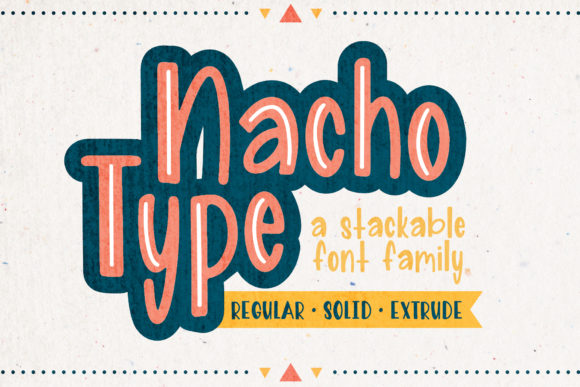
Introducing Nacho Type, the best font for vintage design! Created by The Pretty Letters, this hand-lettered feminine layered sans serif font family is perfect for all your design work. Whether you're creating holiday decorations, cinco de mayo t-shirts, Easter baskets and mugs, party banners, kids back to school activity sheets, or print-on-demand products, Nacho Type is sure to make your designs stand out.
With its unique style and elegant look, Nacho Type is perfect for any DIY project or cutting machine design, such as welcome home and birthday banners. This font family is a must-have for anyone looking to add a touch of sophistication to their designs.
Nacho Type's versatility is one of its greatest strengths. It works well with a variety of design styles, from vintage to modern. Its bold and clear lines make it easy to read, even at smaller sizes, making it perfect for both print and digital designs.
But Nacho Type isn't just about looks. It's also a highly functional font family that is perfect for any project. Its layered design allows you to create stunning effects with ease, making it perfect for creating eye-catching headlines, logos, and more.
In summary, if you're looking for a font family that is both stylish and versatile, look no further than Nacho Type. With its unique hand-lettered design, it's the perfect choice for anyone looking to elevate their designs and create something truly special.